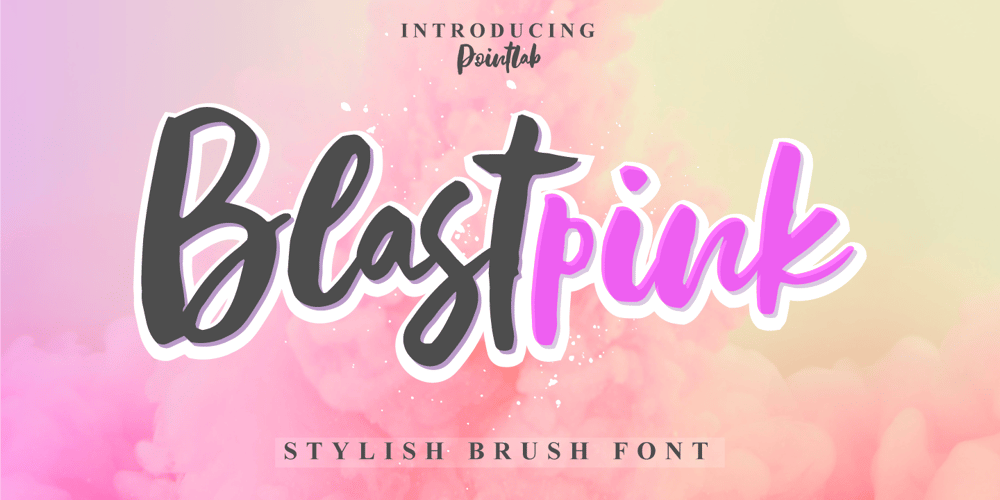
Blastpink Script
Blastpink Script font
Blastpink Script Font Family was designed by Ferdiansyah and published by Pointlab. Blastpink Script contains 1 styles and family package options. Blastpink Script a new fresh & modern script with a handmade calligraphy style, decorative characters and a dancing baseline! So beautiful on invitation like greeting cards, branding materials, business cards, quotes, posters, and more!!Blastpink Script come with 250+ glyphs. The alternative characters were divided into several Open Type features such as Swash, Alternates Set. The Open Type features can be accessed by using Open Type savvy programs such as Adobe Illustrator, Adobe InDesign, Adobe Photoshop Corel Draw X version, And Microsoft Word. And this Font has given PUA unicode (specially coded fonts). so that all the alternate characters can easily be accessed in full by a craftsman or designer.Blastpink Script: Uppercase & Lowercase International Languange & Symbols Support Punctuation & Number PUA Unicode Range Standard Stylistic Alternates Stylistic Set 1-2 Character Variant.